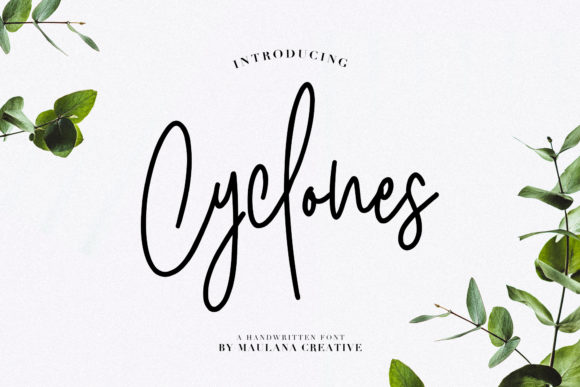
Immerse yourself in the whimsical world of Cyclones Font, an enchanting script font that captivates with its distinctive charm. Born from the creative genius of Maulana Creative, Cyclones boasts a personality that's both friendly and modern, effortlessly adding a touch of elegance to your digital creations.
With its unique style and contemporary appeal, Cyclones Font is an artistic masterpiece that sparks inspiration and ignites creativity. Whether you're a seasoned designer or a passionate hobbyist, let Cyclones be your muse, guiding you to create captivating designs that leave a lasting impression.
Express your individuality through the dynamic lines and graceful curves of Cyclones. Its versatility knows no bounds, making it the perfect choice for a wide range of projects. From eye-catching logos and branding materials to inviting social media posts and elegant wedding invitations, Cyclones Font seamlessly adapts to your vision, bringing your ideas to life with flair.
Cyclones Font is more than just a collection of characters; it's an experience that transports you to a world of imagination and creativity. Its friendly nature invites you to explore new design possibilities, while its modern aesthetic ensures your creations remain timeless and relevant. Unleash your inner artist and let Cyclones be your guide on this extraordinary journey of self-expression.
Don't miss this opportunity to elevate your designs with Cyclones Font. Its unique style and captivating charm are sure to leave a lasting impression on your audience. Embrace the power of creativity and let Cyclones inspire you to create masterpieces that resonate with your individuality.